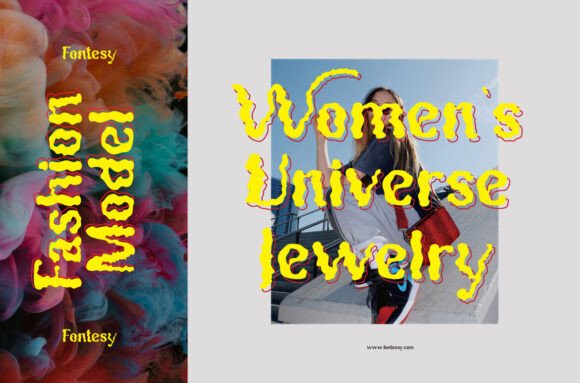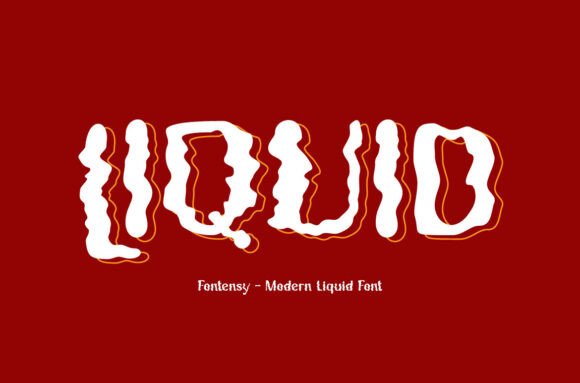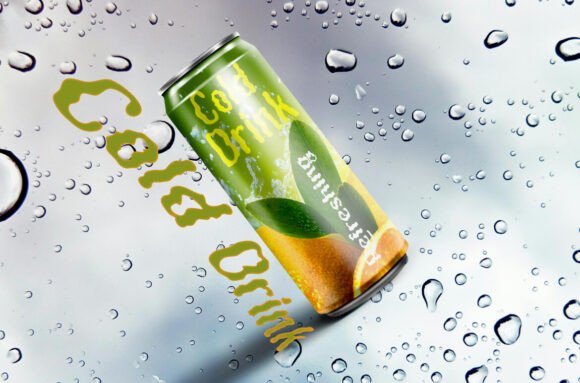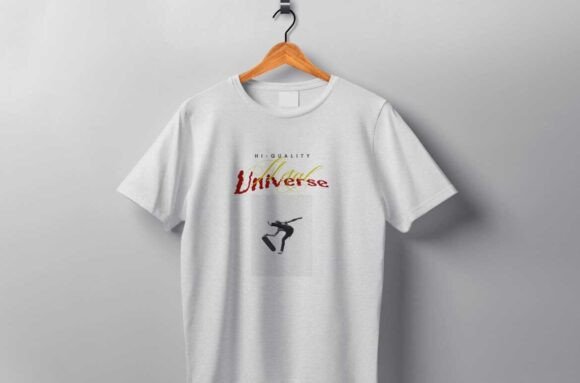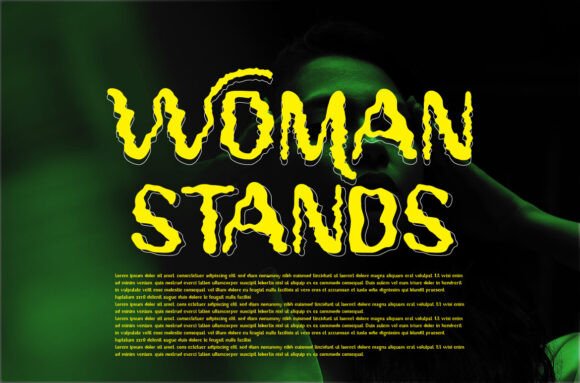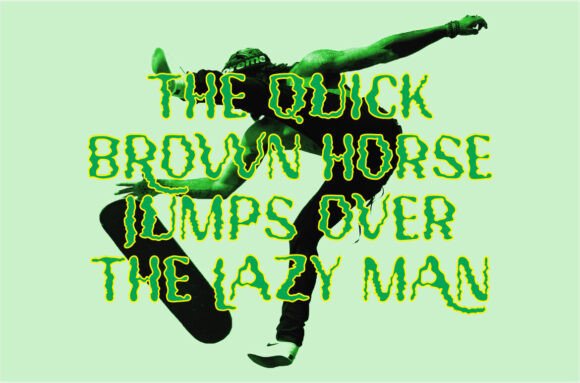
Introduction to Rethor Font Font
Fonts play a crucial role in design, and the Rethor Font font is a typeface that brings both character and versatility to any project. Whether you’re working on a branding project, a website, or a print design, the Rethor Font font offers a unique style that can elevate your work.
| 👤 Author | Fontensy |
Rethor is a hand-drawn font with a bouncy, funky, and fun style, originally inspired by the Y2K aesthetic.
Perfect for posters, logos, t-shirts, flyers, prints, and other branding materials Perfect for your personal or commercial projects.
Key Features of Rethor Font Font
Why Choose Rethor Font Font?
The Rethor Font font is more than just a typeface – it’s a design tool that helps you communicate your message with style and clarity. Its unique character set and versatile design make it suitable for a wide range of applications, from elegant invitations to bold headlines.
With its carefully crafted letterforms and balanced proportions, the Rethor Font font ensures readability and visual appeal across all mediums.
What makes Rethor Font font special?
The Rethor Font font stands out with its unique design, exceptional readability, and versatility across various design applications.